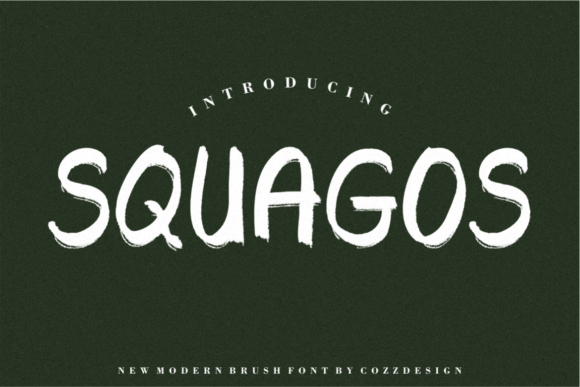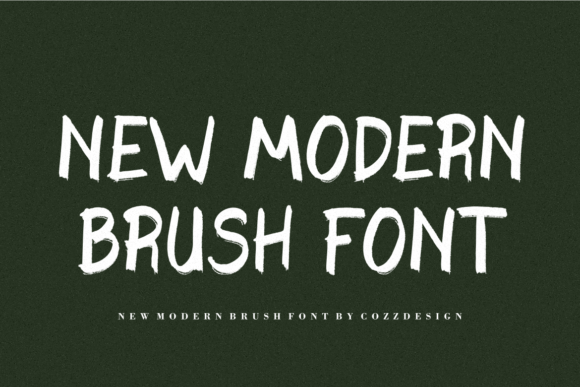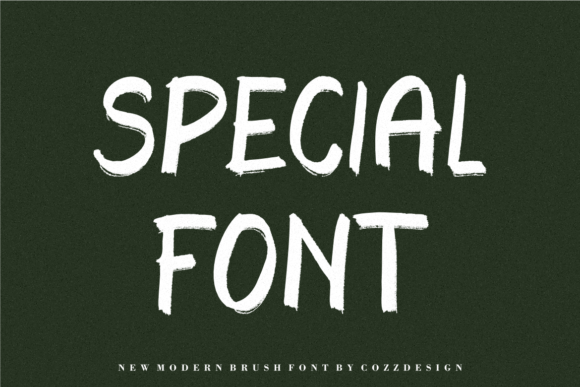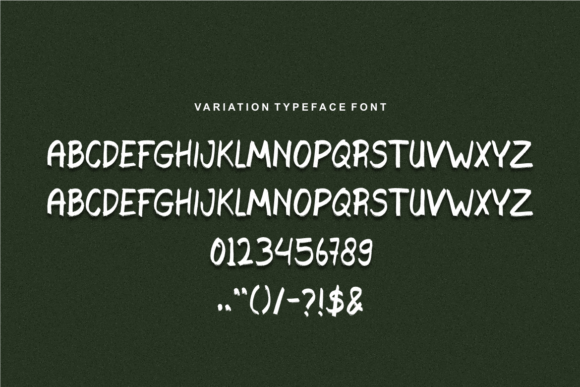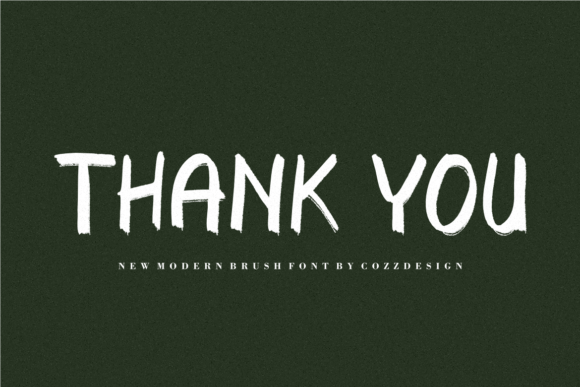
**Squagos: The Modern and Trendy Handwritten Brush Font**
*Squagos* is a contemporary and fashionable handwritten brush font that adds a touch of flair and modernity to your design projects. With its unique character and versatile style, Squagos has the potential to elevate and enhance a wide range of creative endeavors.
One of the standout features of Squagos is its contemporary brush-style design. The font exudes a sense of free-spirited creativity and artistic expression. The brush strokes that form each character give Squagos a handcrafted quality, making it feel both authentic and unique. Whether you’re working on branding, logo design, posters, or any project that requires a trendy touch, Squagos is a font that can capture attention.
The modernity of Squagos makes it a fantastic choice for design projects that aim to convey a fresh and forward-thinking vibe. Imagine using it in a branding campaign for a cutting-edge tech startup or a fashion label looking to make a bold statement. Squagos can instantly infuse your designs with a contemporary energy that resonates with a modern audience.
Squagos is also incredibly versatile. It adapts seamlessly to various design contexts and themes, allowing you to explore its full potential. Whether you’re designing a website, creating social media graphics, or working on packaging, Squagos can effortlessly fit into your creative toolkit.
One of the font’s strengths is its legibility and clarity, ensuring that your message remains easily readable while still conveying a stylish and trendy aesthetic. It’s a font that can help your content stand out without sacrificing readability—a crucial balance in modern design.
Moreover, Squagos provides multilingual support, catering to a diverse global audience and ensuring that your message can be conveyed effectively to people from various linguistic backgrounds.
In summary, *Squagos* is a modern and trendy handwritten brush font that adds a dash of contemporary style to your design projects. Its unique brush-style design, versatility, and readability make it an excellent choice for a wide range of applications. Whether you’re designing for a forward-thinking brand or simply want to infuse your projects with a trendy vibe, Squagos is a font that can enhance any creation.